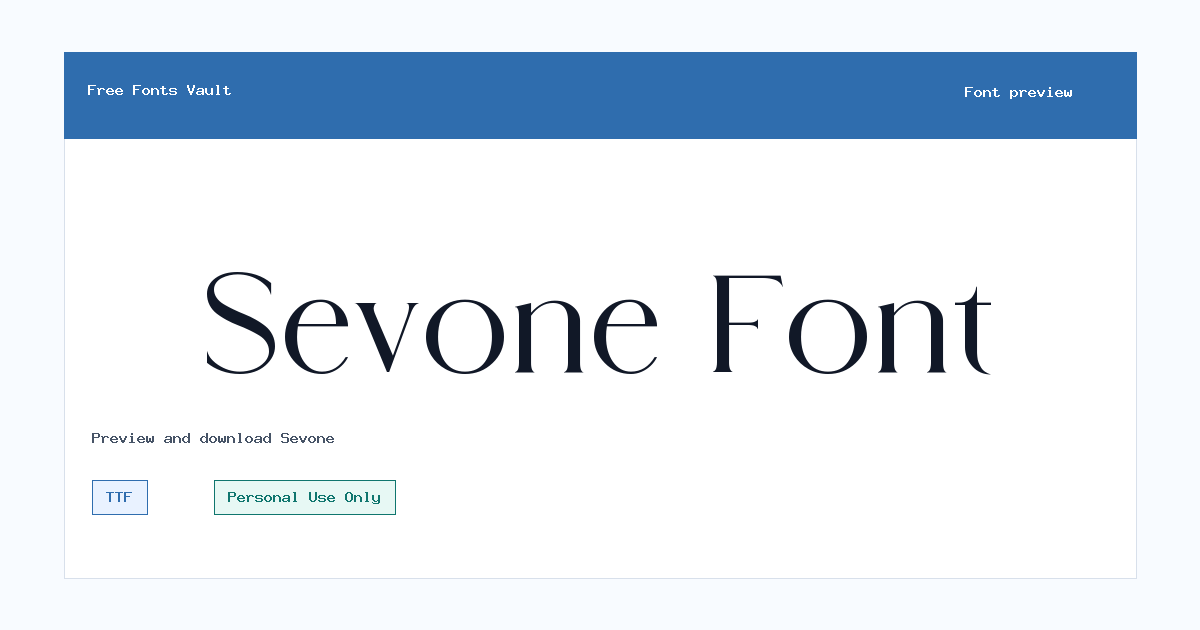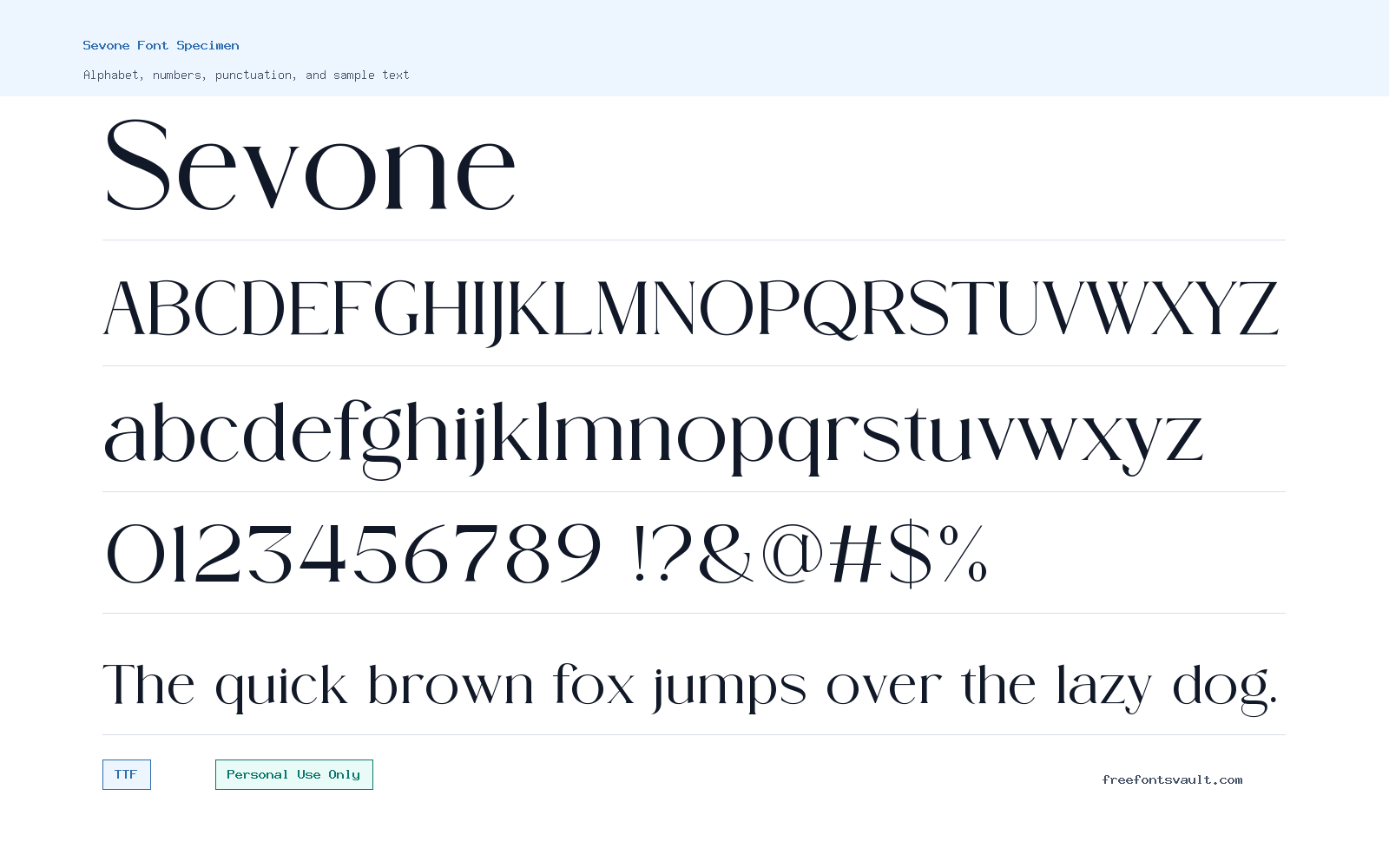
Sevone
Sevone font preview showing the family name
Sevone Font
Sevone font specimen showing alphabet, numbers, and sample text
Sevone font.
About Sevone Font
Sevone works best as a display font rather than a long-reading text face. Its serif style gives words a more refined and editorial feel, which can be useful when you need a title to look more composed than a plain sans serif. Try it first with short phrases, brand names, initials, or headline text where the letter shapes have enough room to show. For logo sketches, fashion-style headings, packaging drafts, invitation layouts, and poster titles, it can help create a clean but more characterful first impression without needing heavy decoration.
Because only a regular 400 style is listed, plan your hierarchy around size, spacing, color, and contrast instead of relying on bold or italic companions. In a poster or social graphic, use Sevone for the main heading and pair it with a simple sans serif for dates, captions, prices, or body copy. For web mockups, test the font at several sizes before using it in navigation or small interface text; decorative serif details can lose clarity when they are too small. If you are preparing a brand concept, check uppercase, lowercase, numbers, punctuation, and any accented characters you need in the preview area. That quick test helps you catch spacing issues, missing symbols, or words that do not balance well before downloading.
• Regular 400 style for clean display typography
• Serif letterforms suited to headlines, names, posters, and mockups
• Best used at medium to large sizes where the shapes remain clear
• Works well with simple sans serif support text for balanced layouts
• Logo concepts and brand name sketches
• Poster headlines and event graphics
• Fashion, beauty, editorial, or boutique-style mockups
• Invitation headings and quote graphics
• Packaging drafts, labels, and presentation titles
• Website hero headings and landing page concepts
Use Sevone where the text is short and visible. Start with generous spacing, then reduce tracking only if the words still read clearly. For logo work, test the exact brand name in uppercase, lowercase, and title case because serif display fonts can change mood quickly depending on letter combinations. For posters and social graphics, keep supporting information in a neutral sans serif so the main heading remains the focus. For web mockups, treat it as a heading or hero font rather than a paragraph font, and check loading, fallback fonts, and readability on mobile-size previews.
What style is Sevone?
Sevone is presented as a serif font in a regular 400 style. It is best treated as a display font for headings and short text.
Is Sevone good for body text?
It is better for short text such as titles, names, and headings. For paragraphs, pair it with a clean, readable text font.